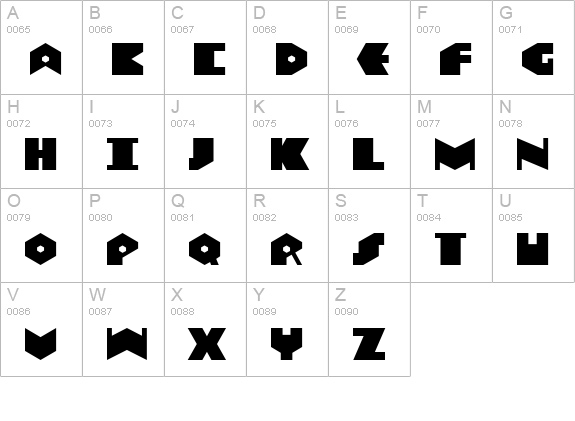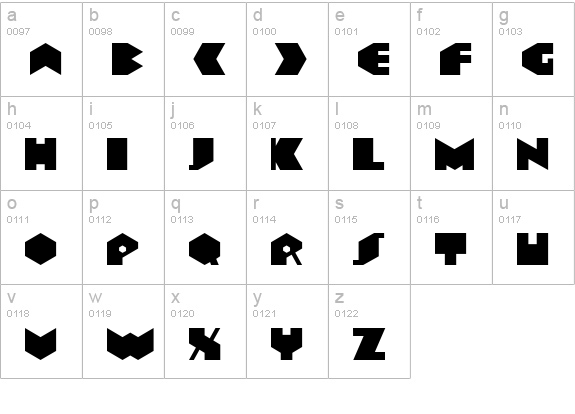
The Data Transfer font is a sleek and modern typeface perfect for conveying a sense of efficiency and technology in your designs. With its clean lines and sharp edges, this font is ideal for projects that require a futuristic and streamlined aesthetic. The Data Transfer font is available for free download at FontsMarket.com, making it a convenient and cost-effective choice for your creative endeavors. Whether you're working on a website, presentation, or branding project, the Data Transfer font will add a touch of sophistication and professionalism to your work. Get your hands on this versatile and stylish font today and elevate your designs to the next level.